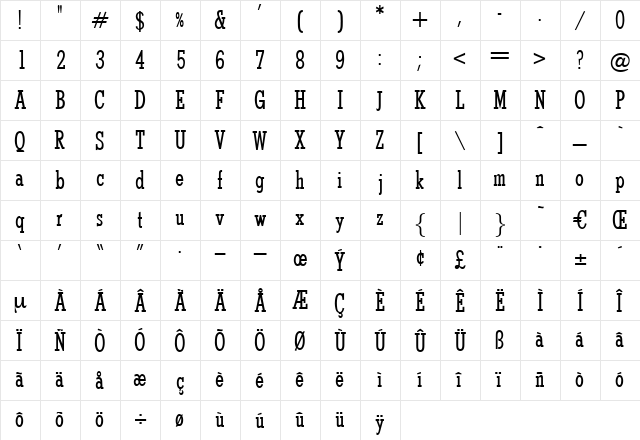
QuarterMedium Regular
Design Context for QuarterMedium Typeface
QuarterMedium takes a measured approach to typography — its balanced proportions and neutral character make it a reliable workhorse for both digital and print work.
Pro Tip: Use QuarterMedium in both headline and body roles to test its range before committing to a single application.